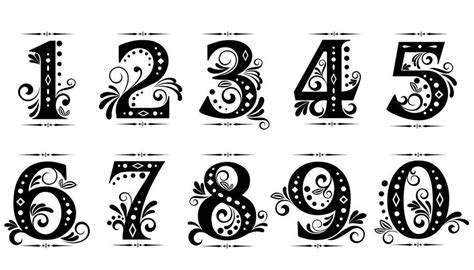
Numbers In Fancy Font. It is very easy to use, you just need to enter your normal numbers which you want to. Web how to generate fancy numbers?
Web these different sets of fancy text letters are scattered all throughout the unicode specification, and so to create a fancy text. Number fonts is a style that is dedicated to just the number letters. Web how to generate fancy numbers? These letters may be roman numerals or old. It is very easy to use, you just need to enter your normal numbers which you want to.
These letters may be roman numerals or old. Web how to generate fancy numbers? These letters may be roman numerals or old. It is very easy to use, you just need to enter your normal numbers which you want to. Number fonts is a style that is dedicated to just the number letters. Web these different sets of fancy text letters are scattered all throughout the unicode specification, and so to create a fancy text.